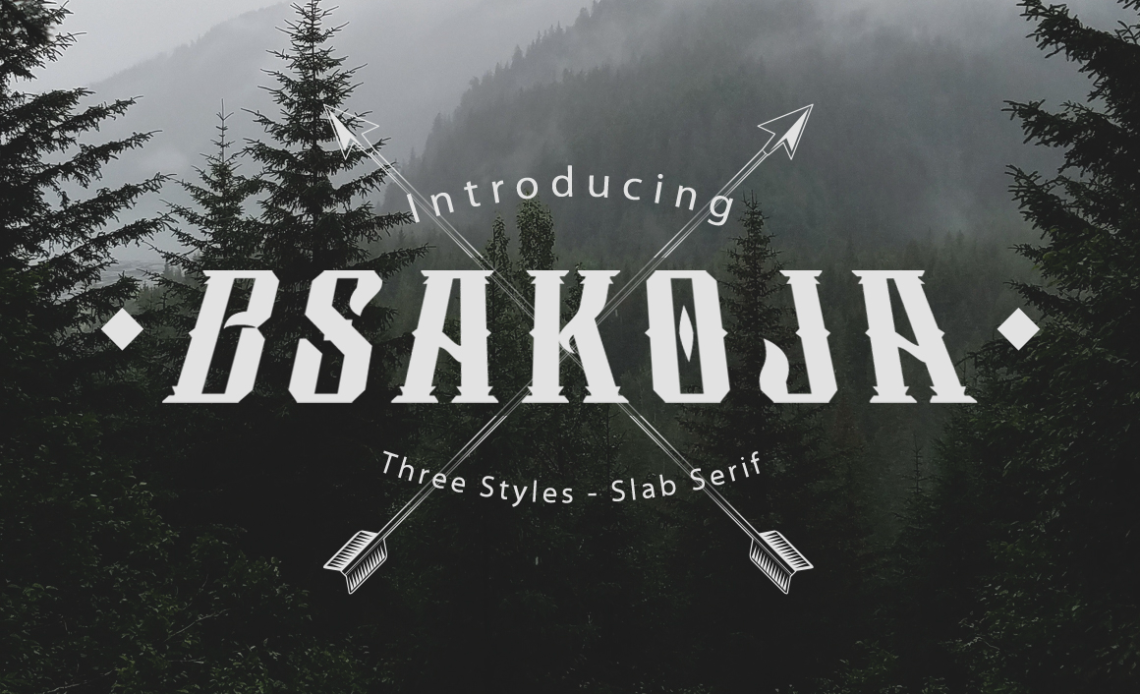
Introducing Bsakoja Font: A Display Font Family That Will Captivate Your Designs
Prepare to be mesmerized by Bsakoja Font, a stunning slab serif display font family that will elevate your designs to new heights. Crafted by the renowned Arterfak Project, Bsakoja is a versatile creation that comes in three distinct styles: Regular, Curvy, and Stencil. Each style possesses its own unique charm, offering endless possibilities for your creative endeavors.
Bsakoja Regular exudes a timeless elegance with its sharp edges and confident strokes. This style is perfect for creating eye-catching headlines, logos, and posters that demand attention. Its strong presence will make your words leap off the page, leaving a lasting impression on your audience.
Bsakoja Curvy, as its name suggests, embraces a softer, more organic aesthetic. Its graceful curves add a touch of femininity and sophistication to your designs. This style is ideal for wedding invitations, branding materials, and social media graphics where a touch of elegance is desired.
Bsakoja Stencil, the boldest of the trio, makes a statement with its striking cut-out effect. This style is perfect for creating vintage-inspired designs, posters, and packaging that exude a sense of nostalgia. Its unique texture will add a layer of depth and intrigue to your creations.
The beauty of Bsakoja Font lies in its versatility. Its flexible shapes can seamlessly adapt to various design styles, from vintage and minimalist to modern and contemporary. Whether you're working on a branding project, a website design, or a social media campaign, Bsakoja has the power to transform your ideas into captivating realities.
Specifically, the curvy variant of Bsakoja Font is highly recommended for printing. Its smooth lines and elegant curves render beautifully on paper, making it an excellent choice for wedding invitations, business cards, and other printed materials where quality and sophistication are paramount.
Unleash your creativity and embark on a design journey like no other with the Bsakoja Font family. Its stunning styles, Regular, Curvy, and Stencil, provide a treasure trove of possibilities for creating designs that resonate with your audience. Download Bsakoja Font today and let your imagination run wild.